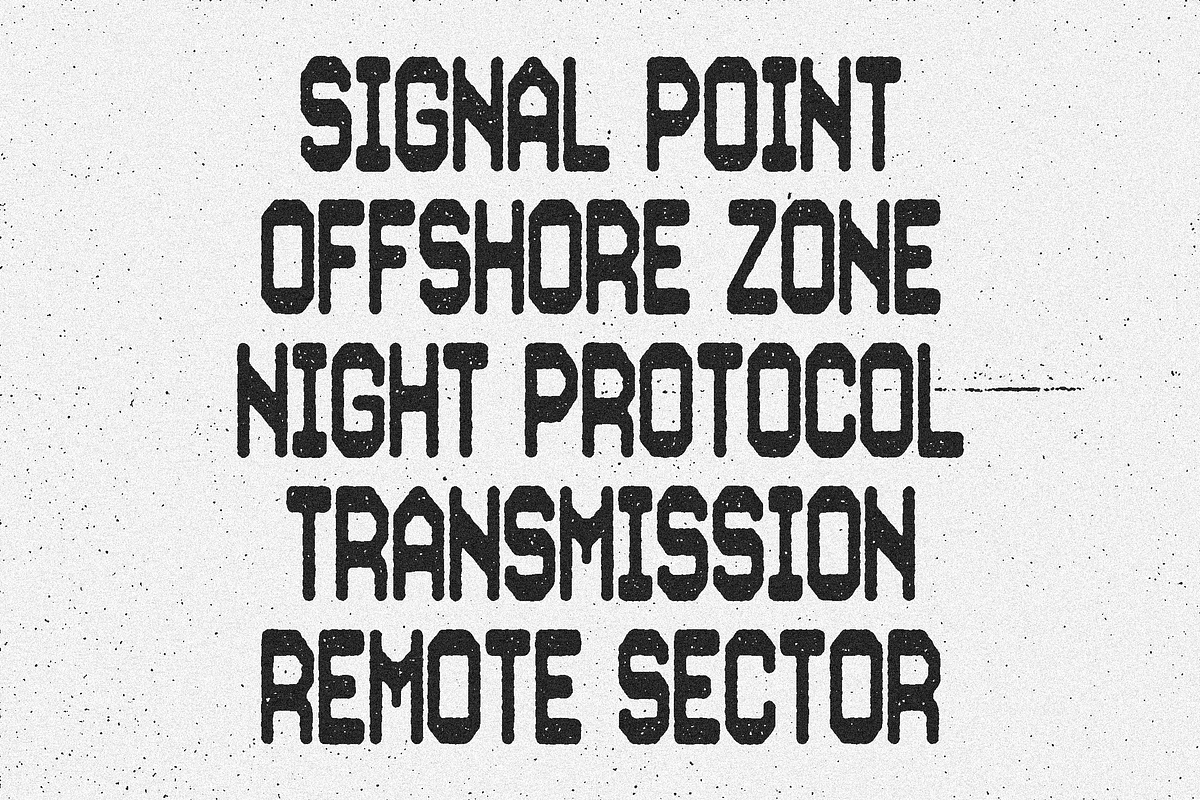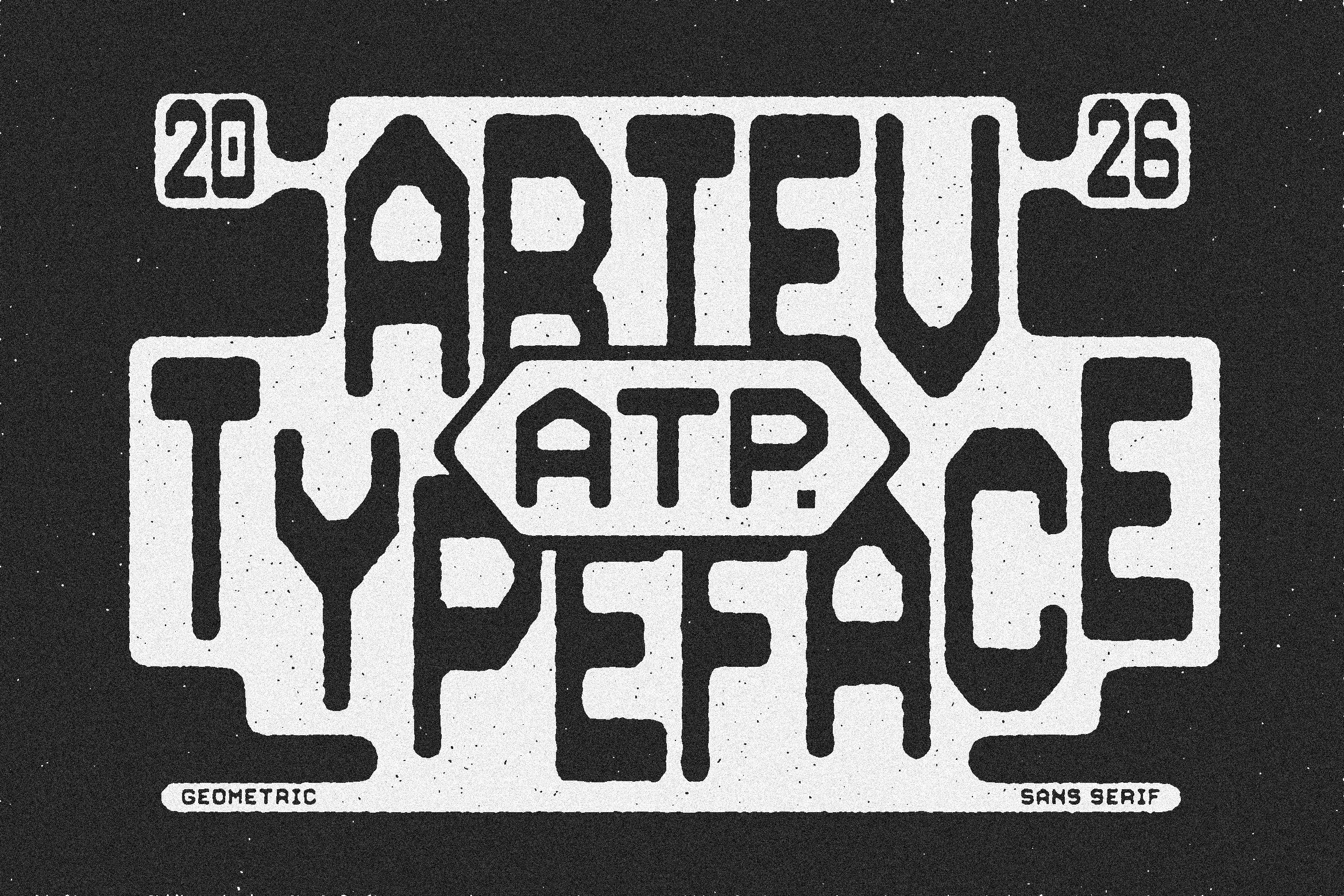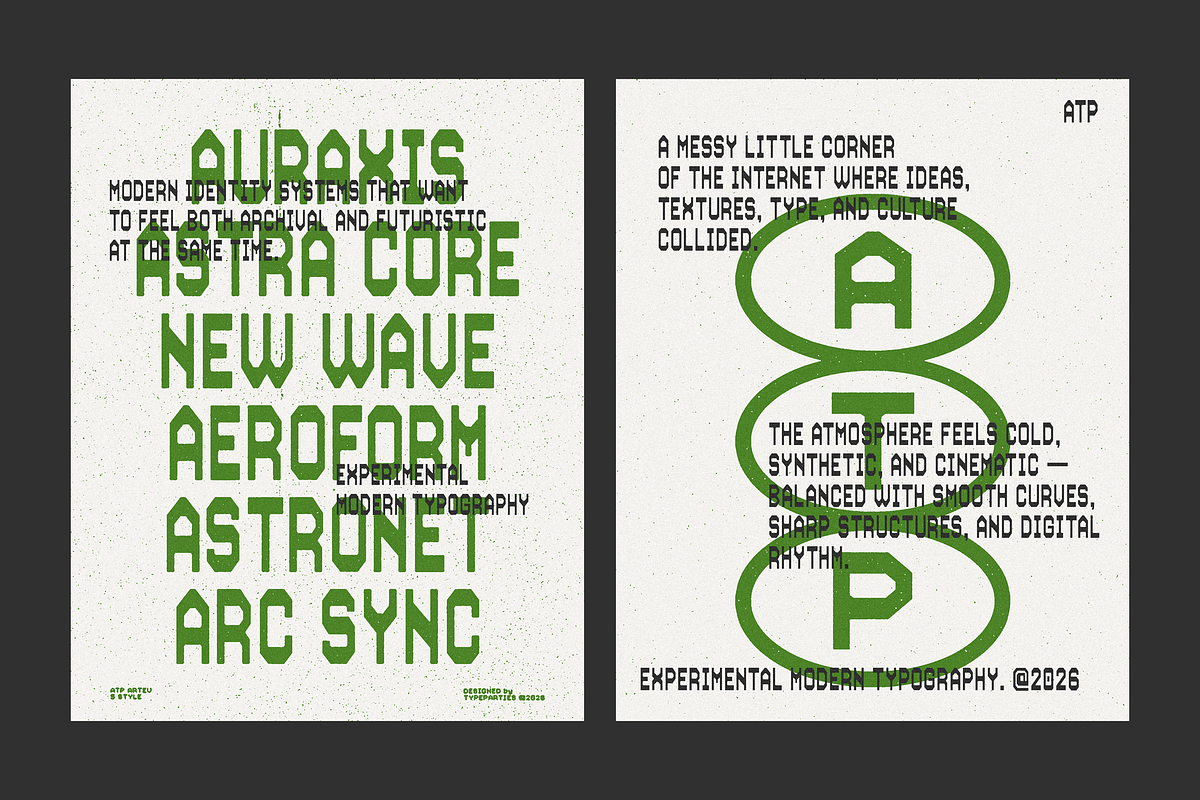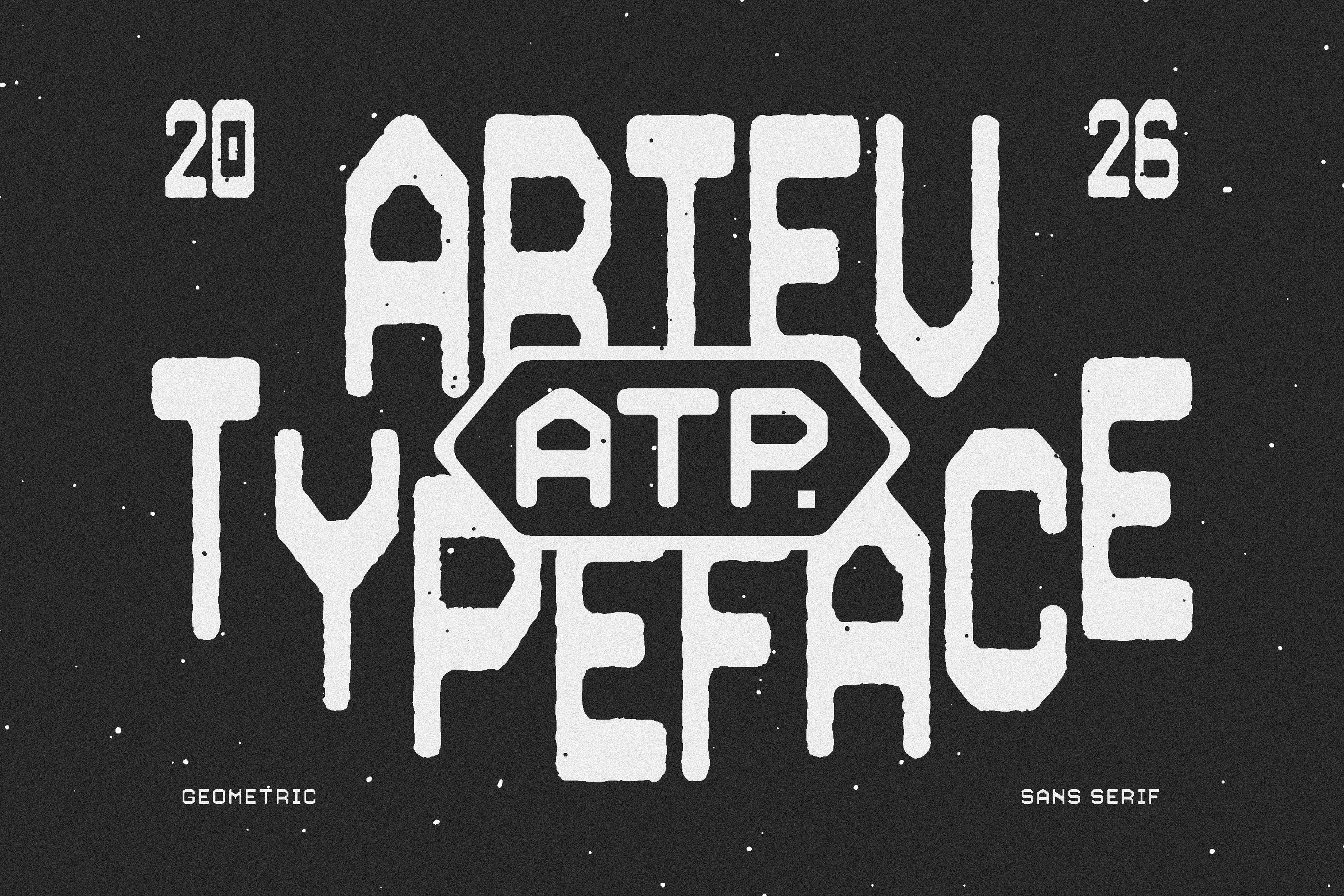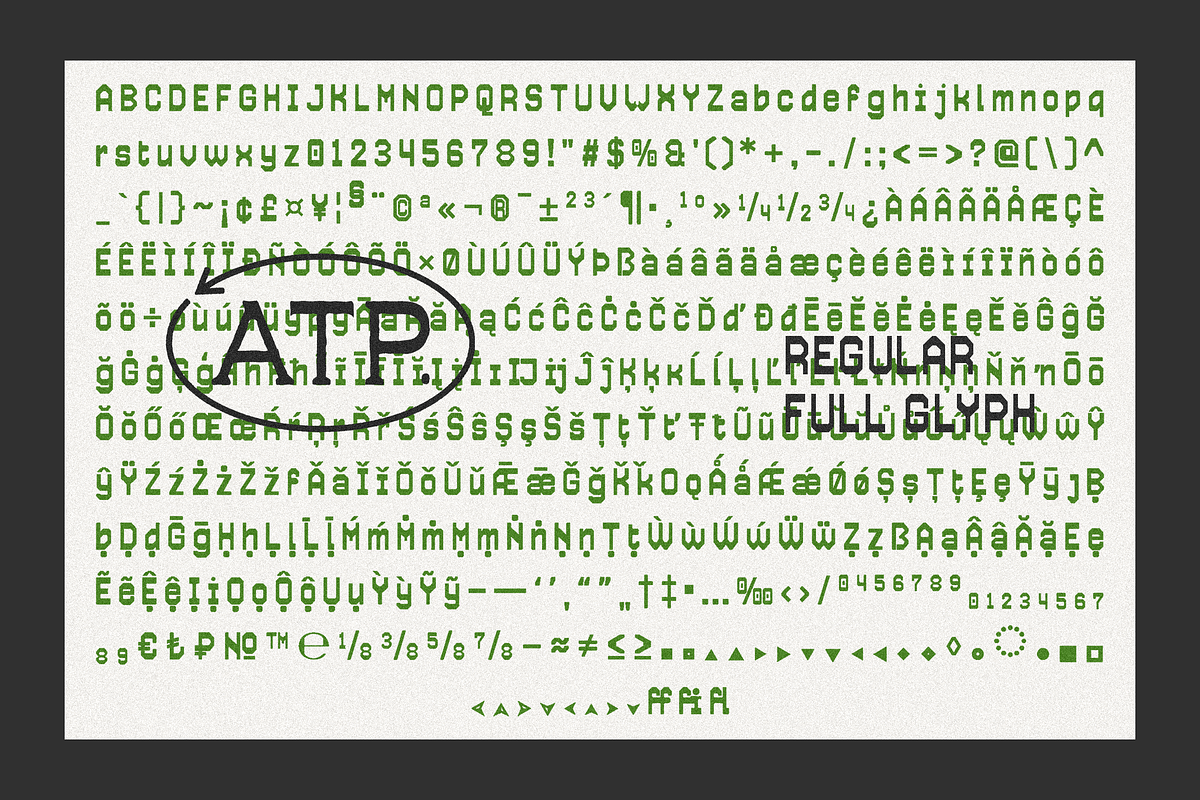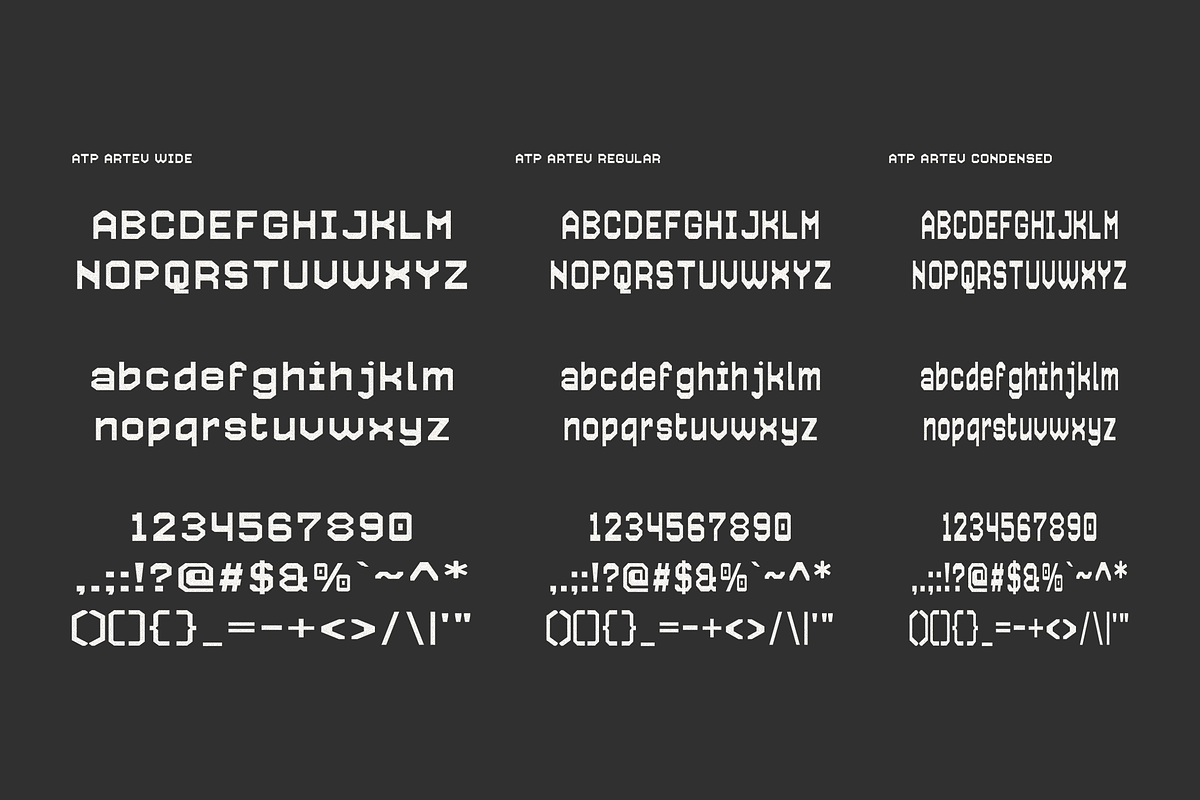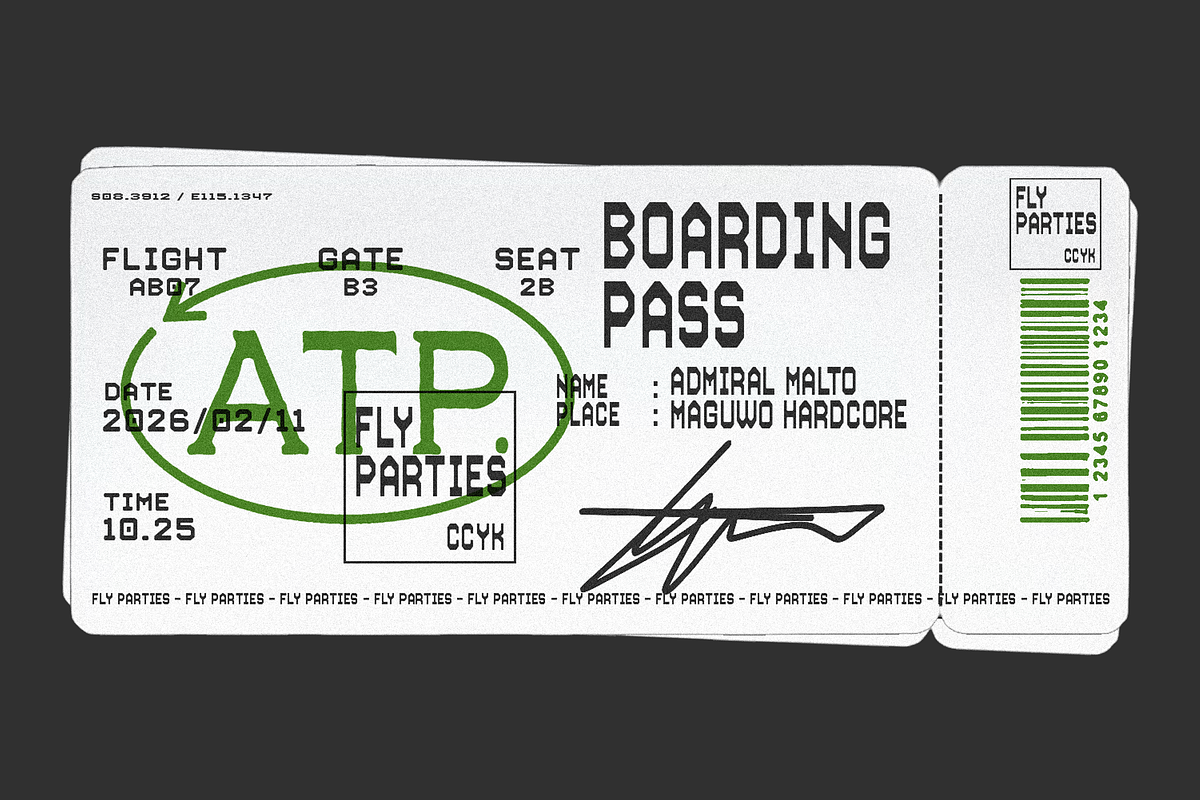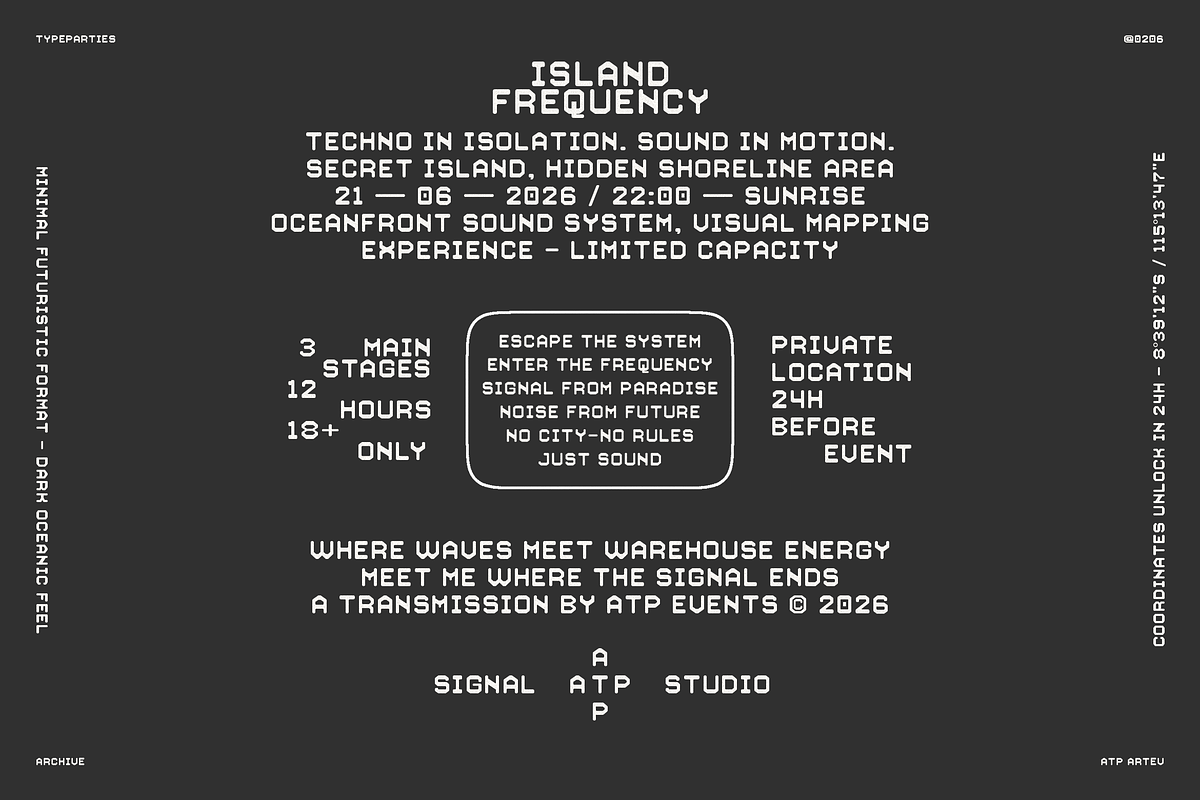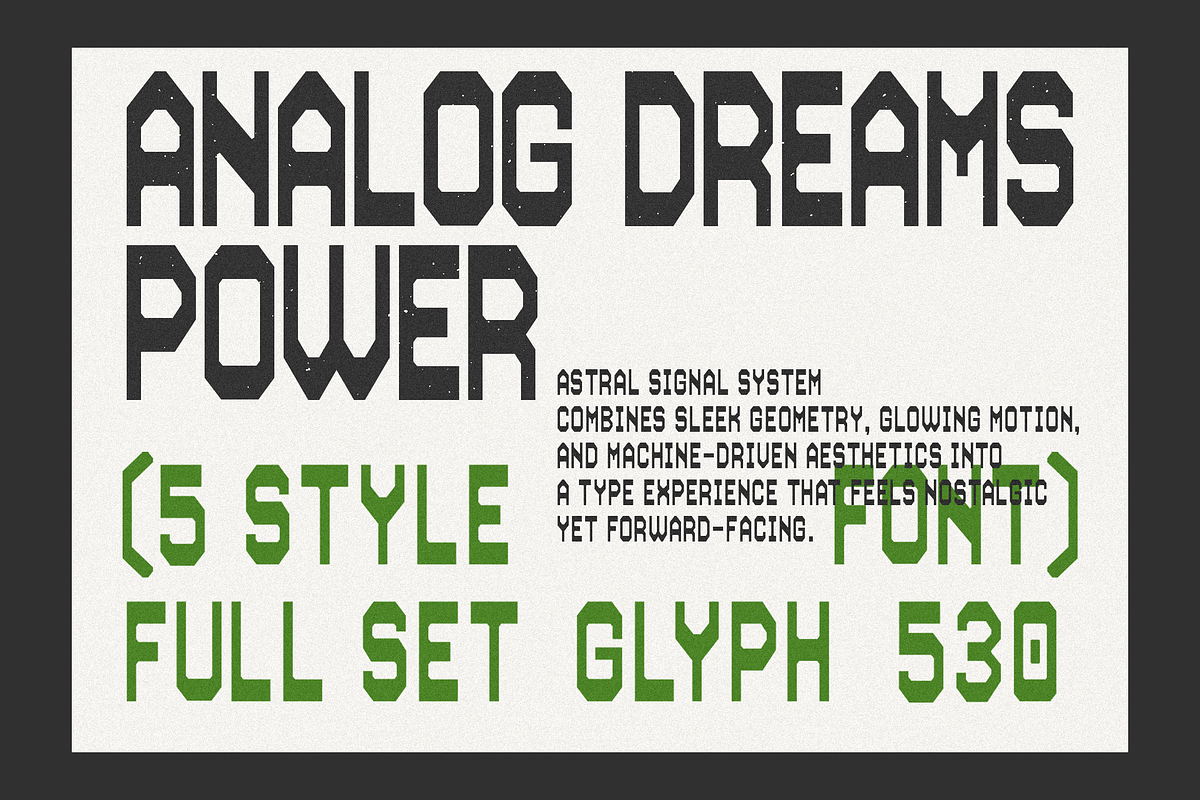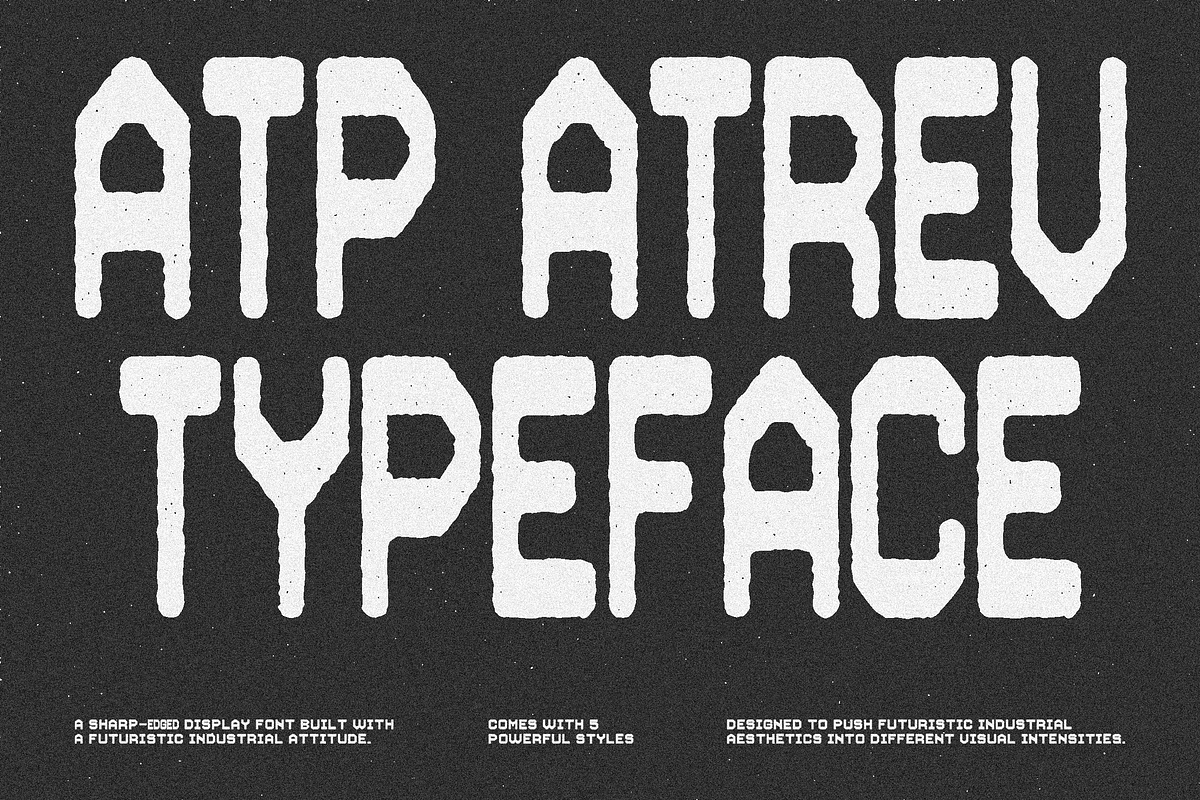
Artev - Geometric Sans Serif Font
ATP ARTEV is a sharp-edged display font built with a futuristic industrial attitude. Every character feels engineered rather than written — geometric cuts, rigid structure, and bold vertical proportions create a strong visual identity that instantly grabs attention. The octagonal counters and angular terminals give the typeface a retro-tech energy, somewhere between arcade systems, cyber athletics, and experimental architecture.
Designed for creators who want loud typography without losing clarity, this font works perfectly for posters, gaming branding, sportswear, tech packaging, album covers, racing visuals, UI headlines, and futuristic editorial layouts. Its condensed construction allows powerful impact while still keeping compositions clean and organized.